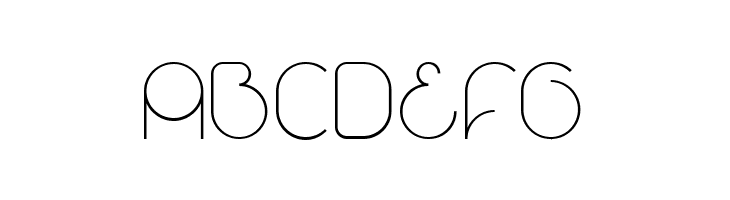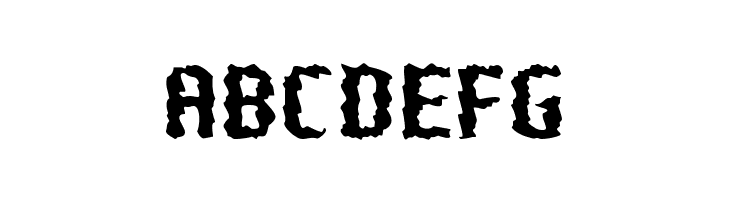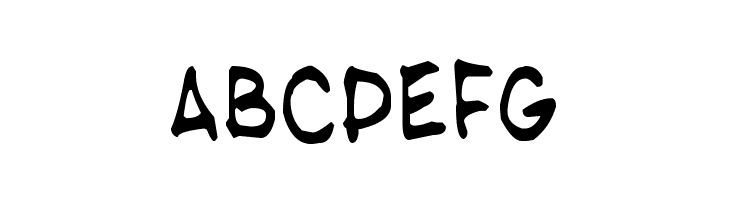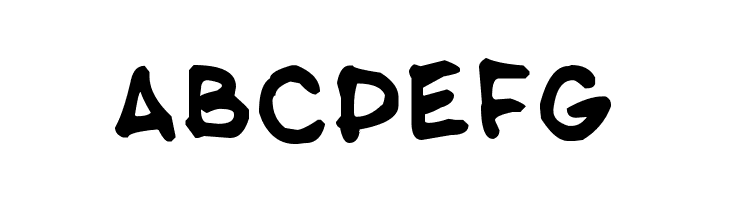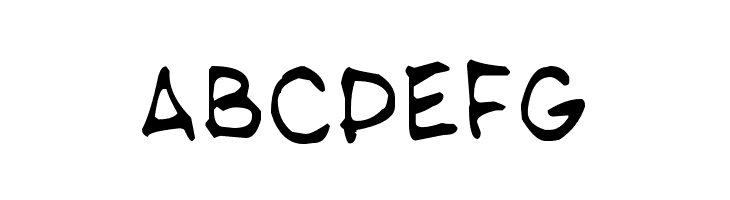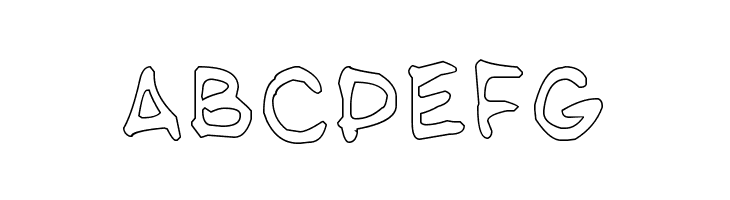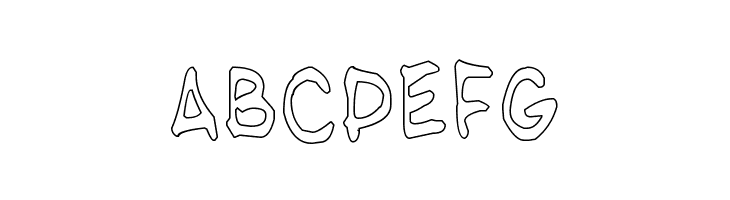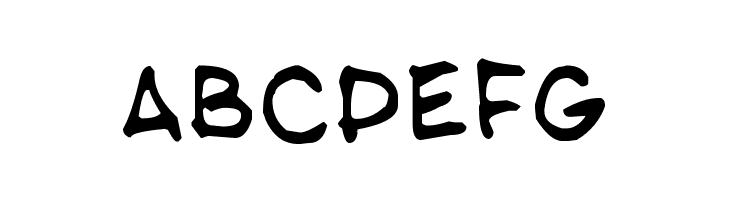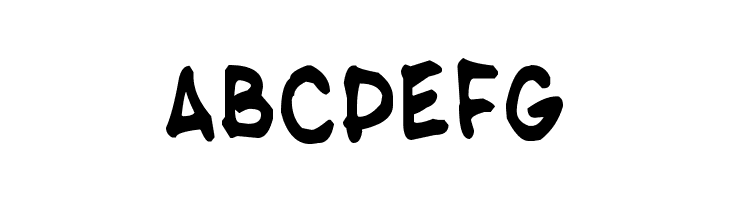
• Nightporter-Regular
A rugged, distressed font with a bold, hand-crafted appearance.
• Nioubes Light
A modern, geometric font with thin lines and a minimalist style.
• Nioubes Light
A sleek, geometric font with a modern, minimalist design.
• NipCen's Handwriting Bold
A bold, playful handwritten font with thick, rounded strokes.
• NipCen's Handwriting CondBd
A bold, playful handwritten font with rounded strokes and an informal style.
• NipCen's Handwriting Condesnsed
A playful, handwritten font with bold, rounded strokes and a condensed style.
• NipCen's Handwriting CondOut
A playful, hand-drawn font with outlined characters and a casual style.
• NipCen's Handwriting Light
A playful, handwritten font with irregular, marker-like strokes.
• NipCen's Handwriting Outline
A playful, outlined handwritten font with a casual and informal style.
• NipCen's Handwriting Regular
A playful, handwritten font with bold, irregular strokes and a casual feel.